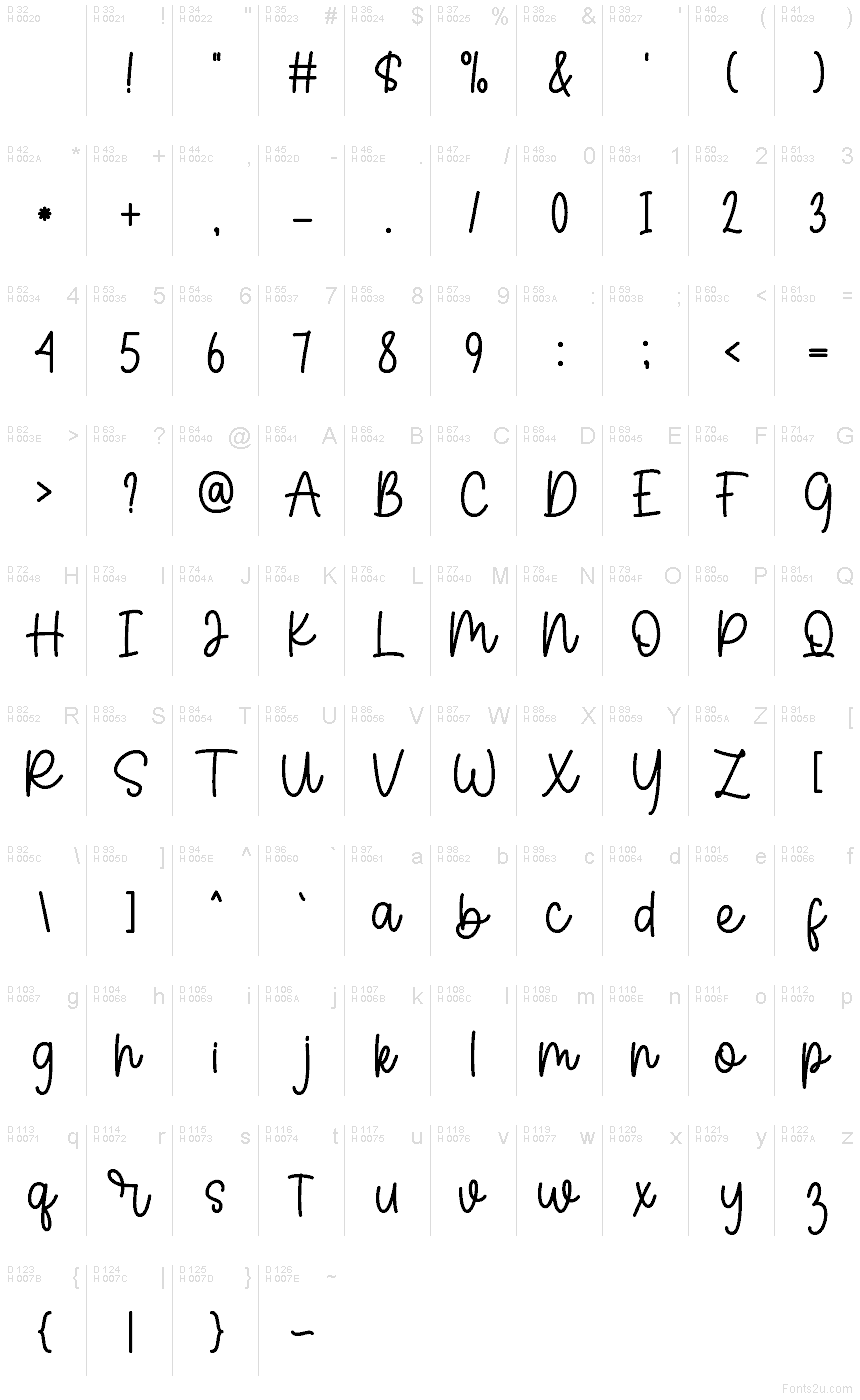
Senoritha
Senoritha font by Fillo Graphic is a free handwritten font with an expressive and casual appearance. Bold modern strokes seamlessly connect one to the other with smooth blends that enhance reader-friendliness. The typeface gives a playful vibe which makes it suitable for fun projects as well as professional ones.
Senoritha will be just perfect for all sorts of invitations, greeting cards, digital invites, wedding branding, logos, and signage. Use this rounded script font on apparel designs such as t-shirts and sweatshirts or inside printed magazines, books, children’s stories and all sorts of covers.